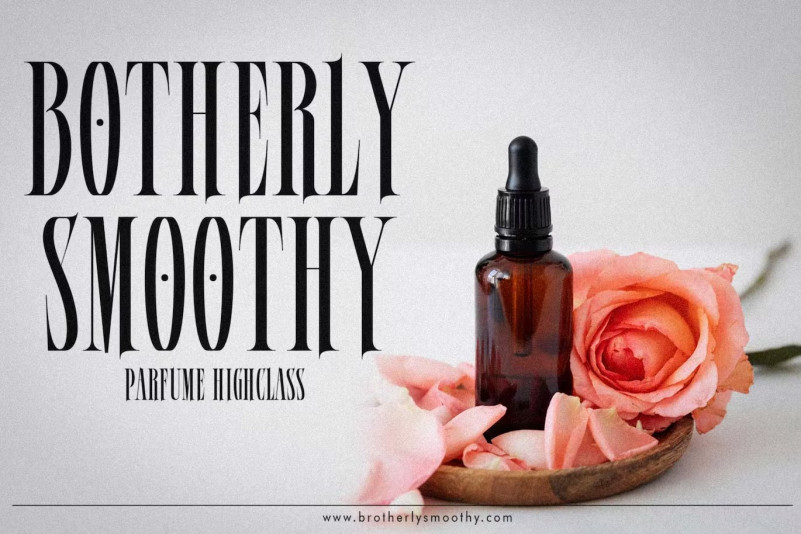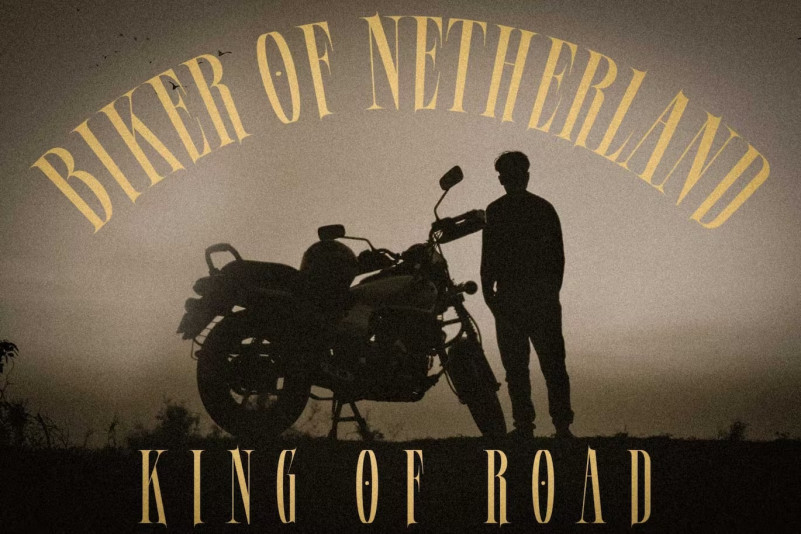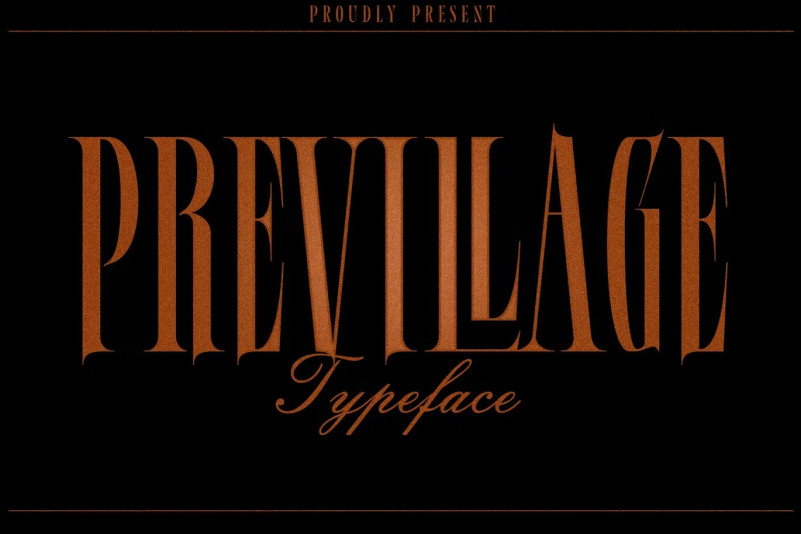
Previllage Font
Previllage Serif Font – a font created in a serif style, but with a distinctive gothic look. would be very suitable for a logo or headline design.